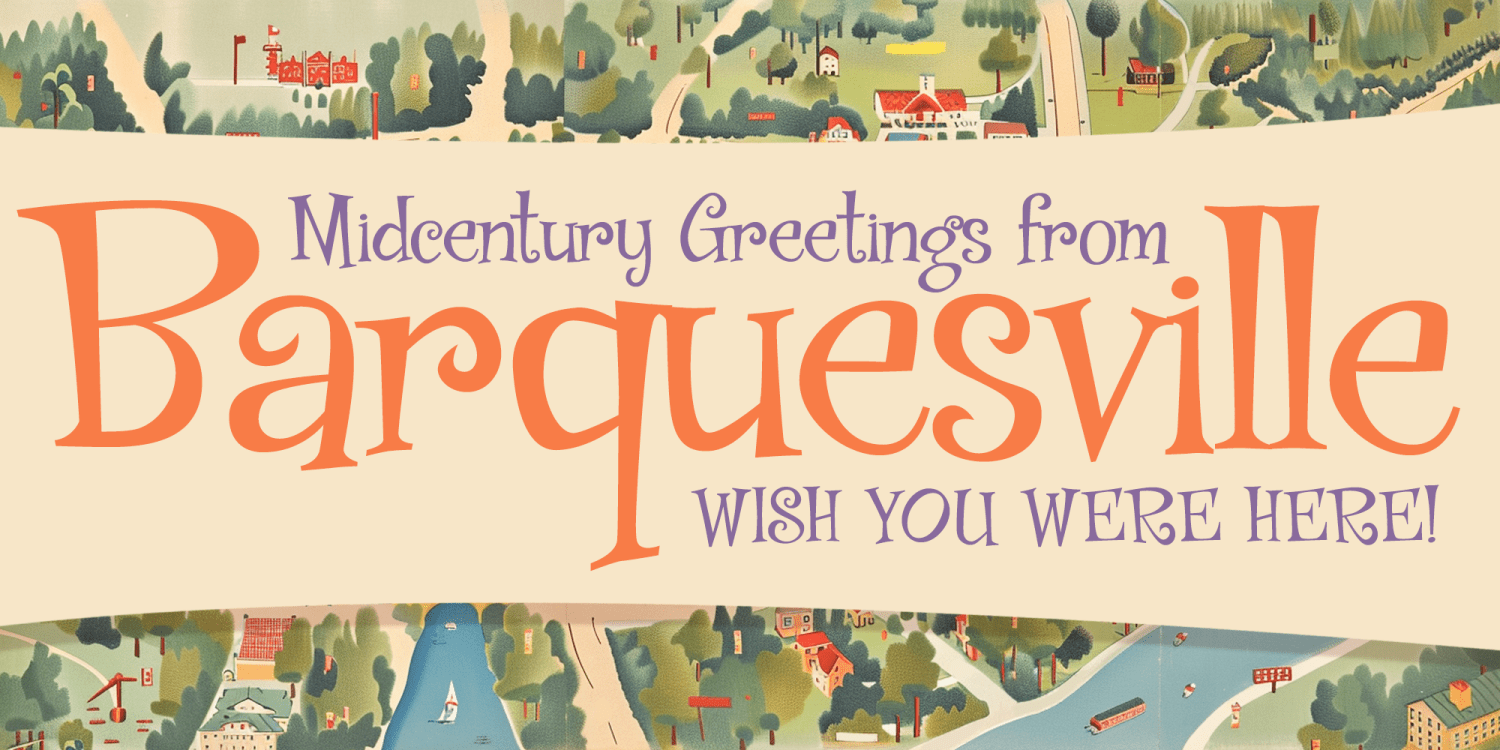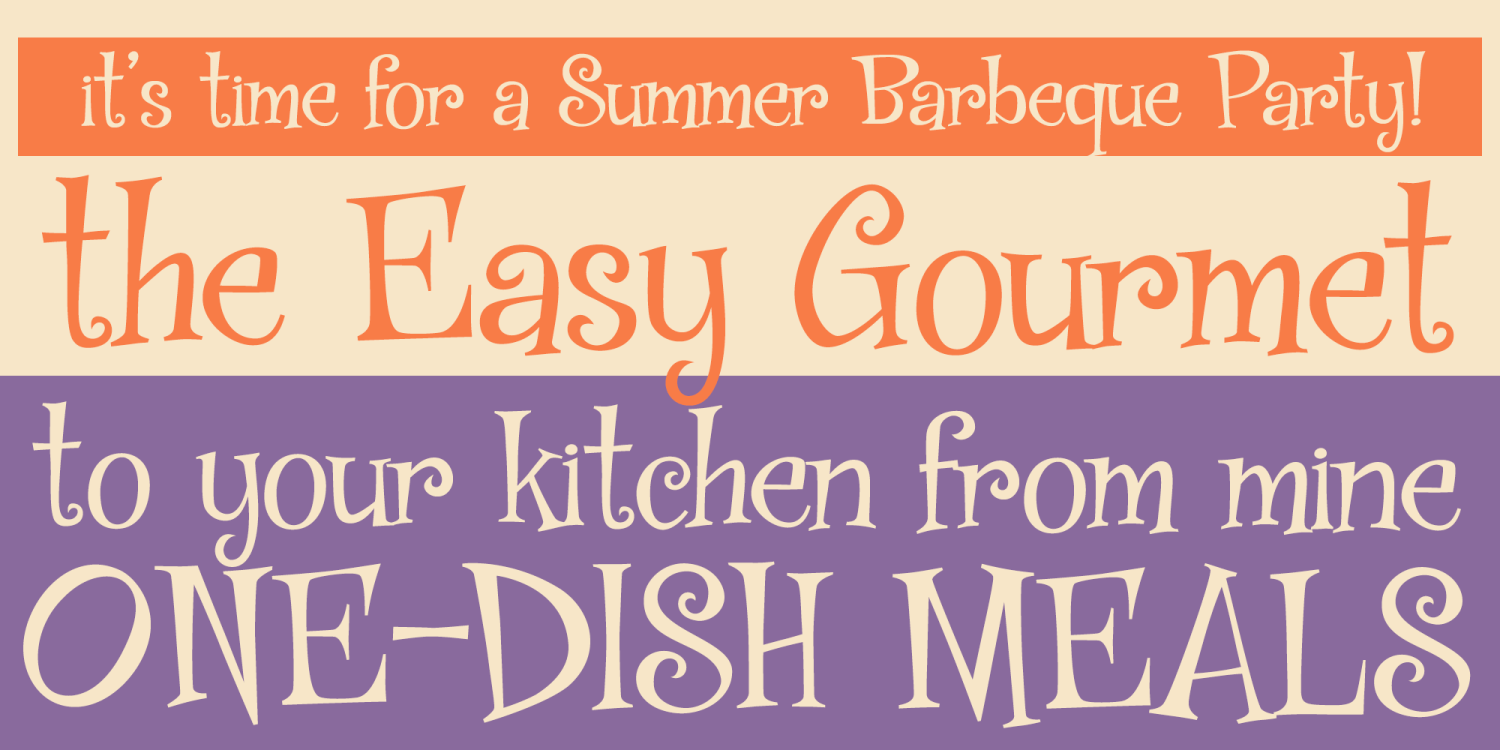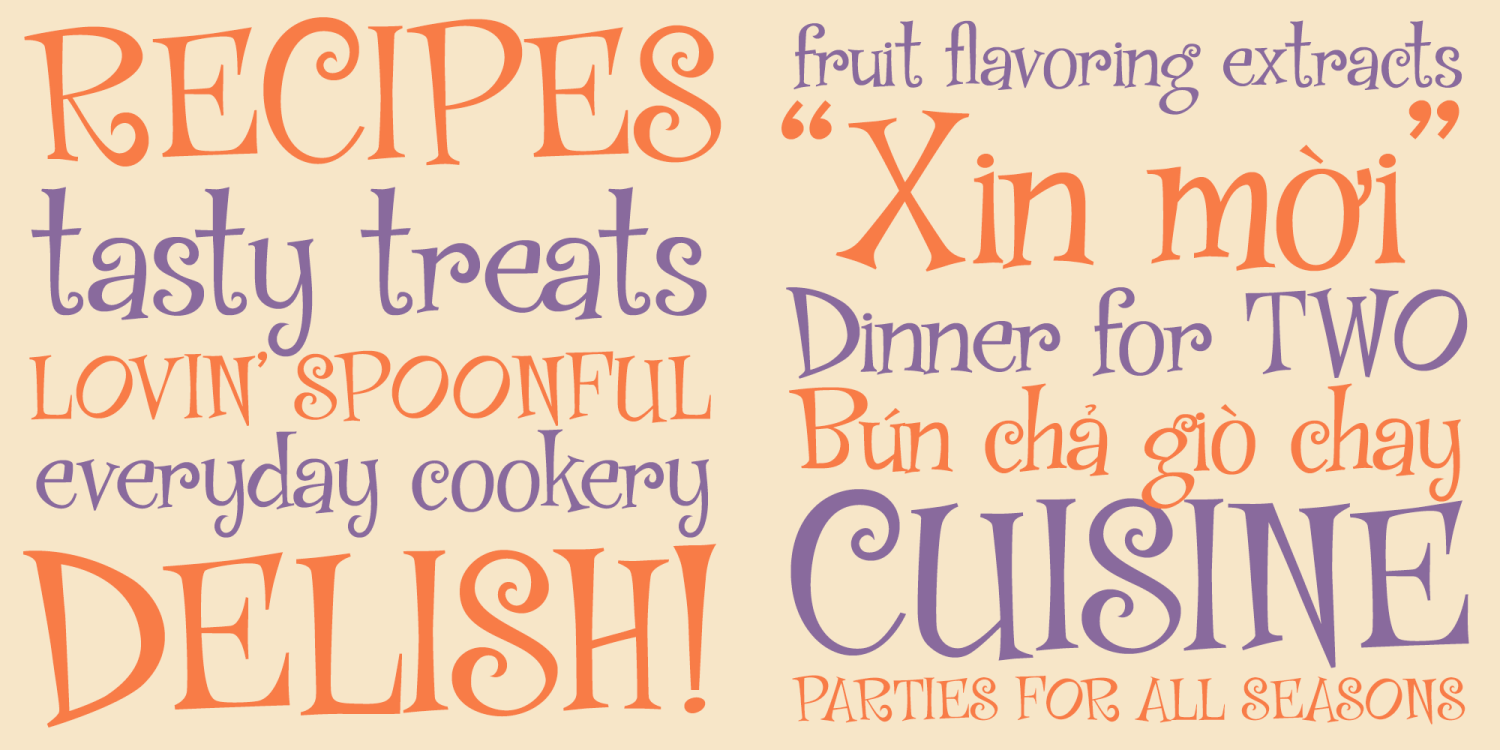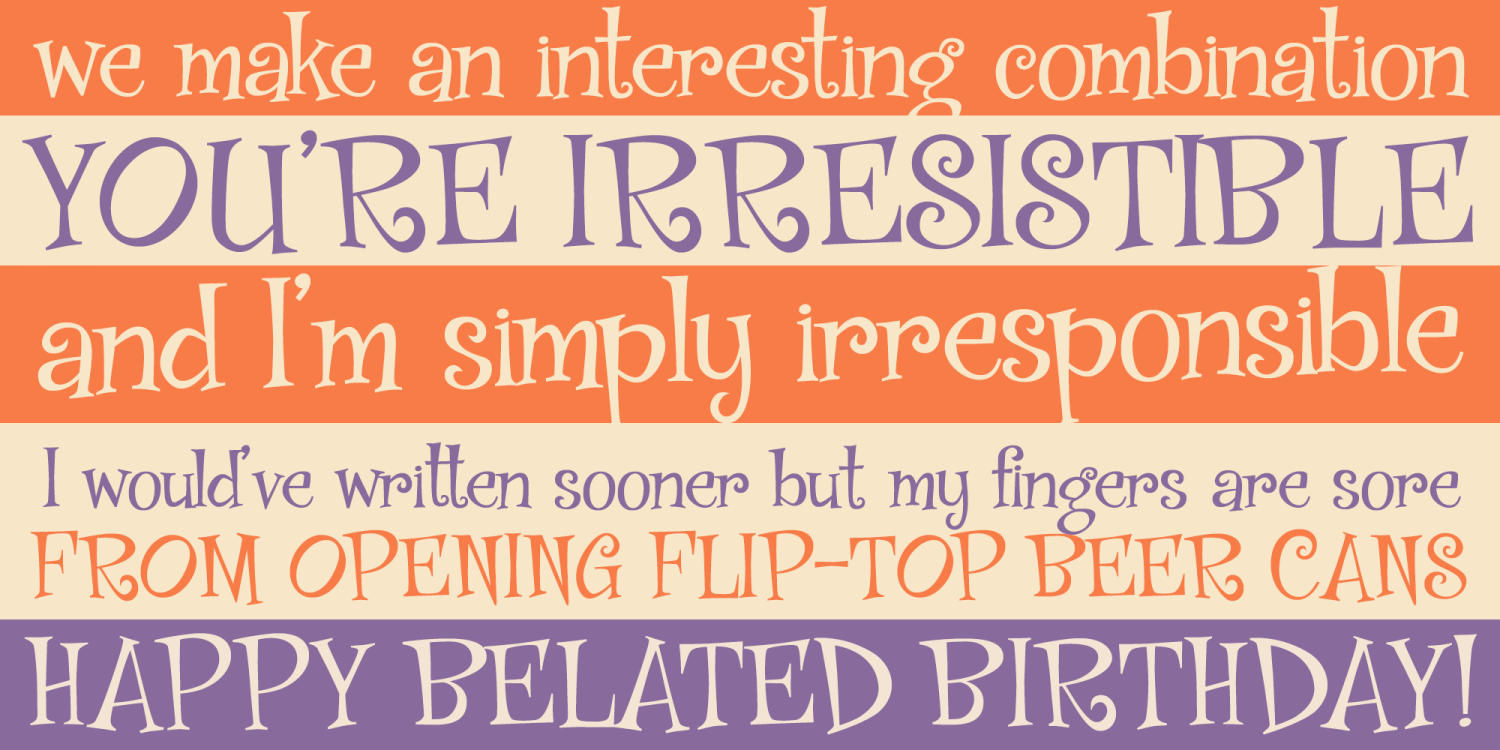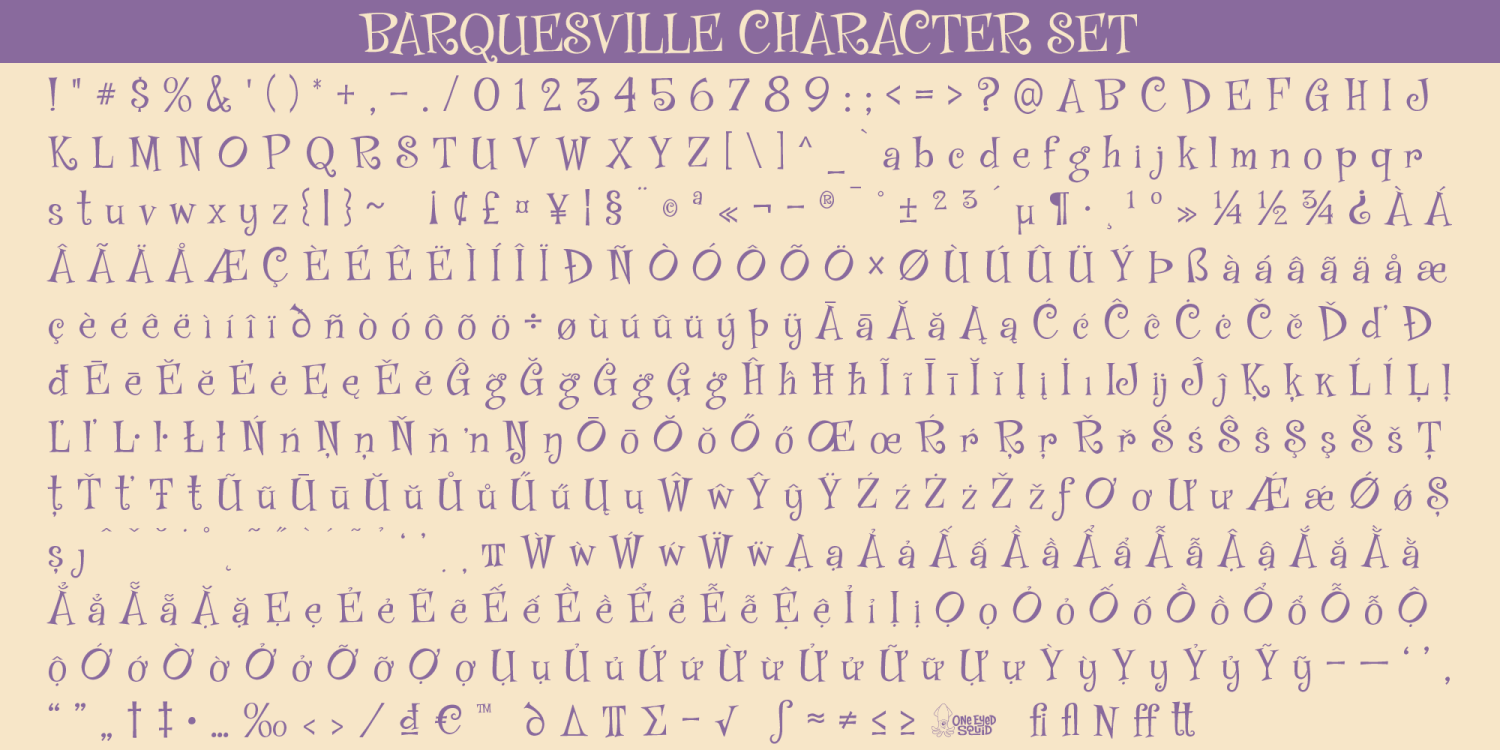
Barquesville
Barquesville is a bubbly mid-century display font with a bright, bouncy personality and an easygoing retro charm. Inspired by the playful lettering of vintage greeting card studios, it brings a cheerful and casual voice to designs that need warmth, friendliness, and a lively sense of fun. Ideal for headlines, posters, branding, packaging, greeting cards, invitations, social media graphics, and other upbeat creative projects, Barquesville delivers a soft nostalgic feel with plenty of decorative appeal. Includes extended Latin language support, including Vietnamese.